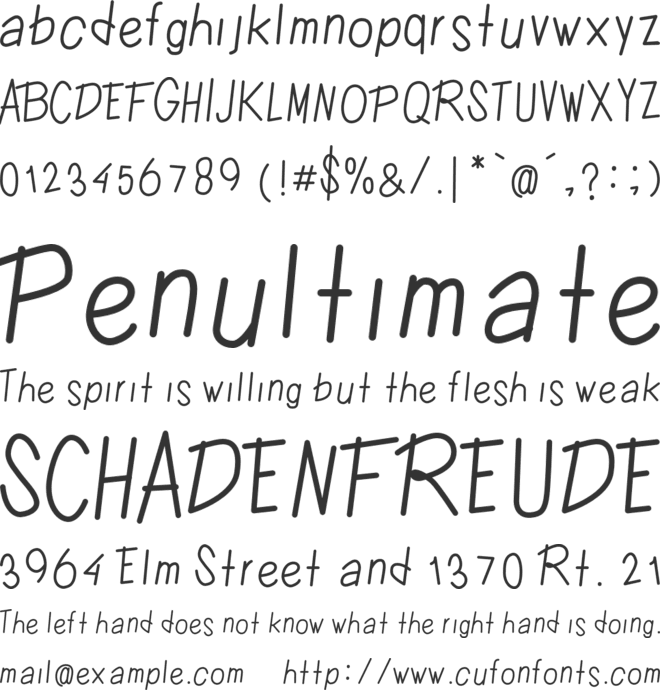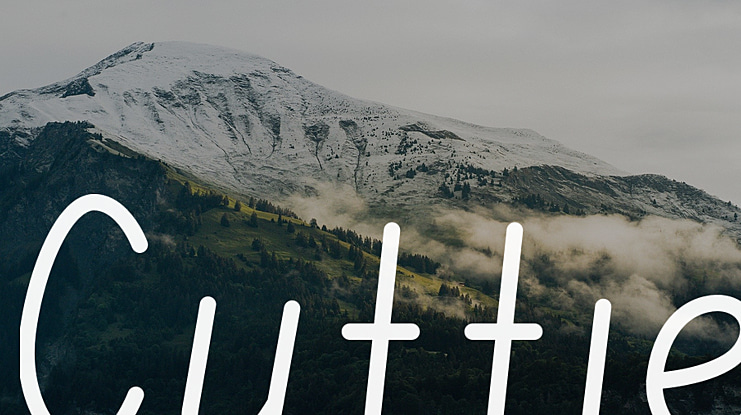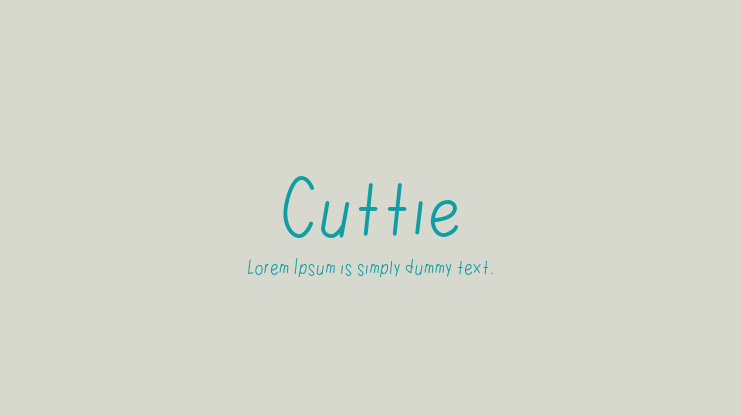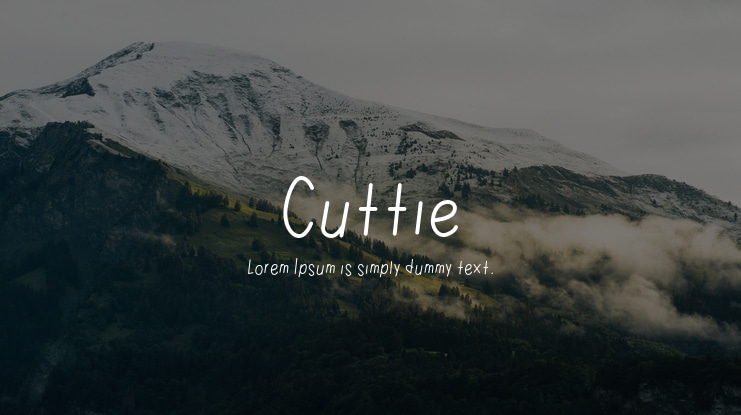
Cuttie Font
Unique and funny are the hallmarks of this font, cuttie font is a handwritten font made by combining unique letters and letter layouts to make it look cute. suitable for use in casual themed designs. Cuttie font consist 1 style, namely : - Regular